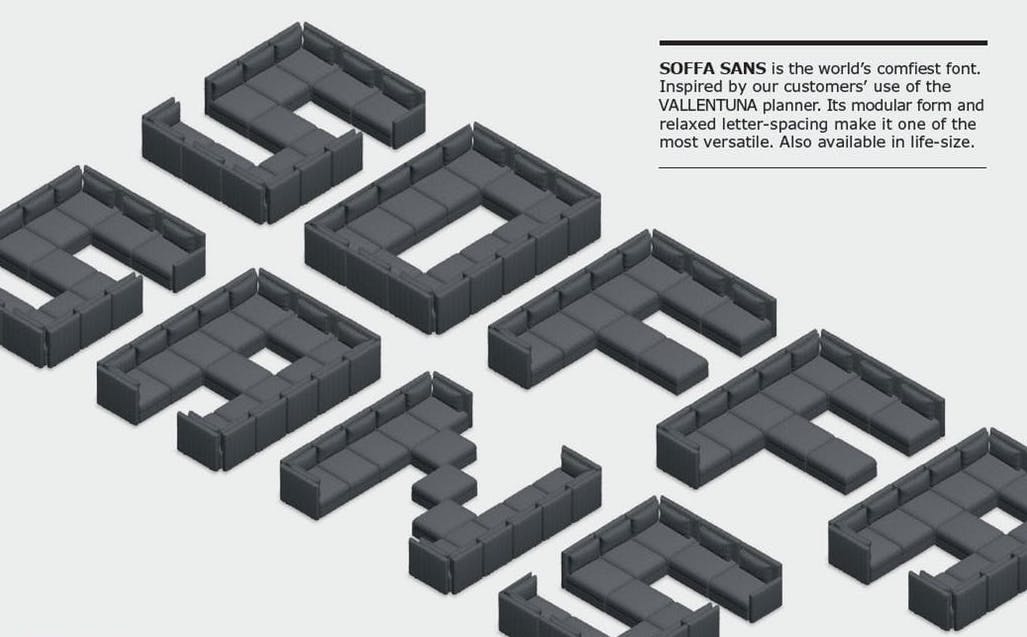
NEW from IKEA: A font made of sofas
IKEA just introduced the “world’s comfiest font.” Why? Memes.
Earlier this week, IKEA unveiled “Soffa Sans,” a font born out of the internet memes from its digital “Design your own sofa” tool. The planner allows people to configure different sectionals, and showcases the final product in 3D. IKEA doesn’t put a limit on the size (or cost) of these online couches, so of course the internet had a field day.
So IKEA — always the *hip* brand — made a font where each letter is formed by pieces of a sofa. You can download it for free here. Want more weird fonts? We obviously have got you covered. Some to check out: